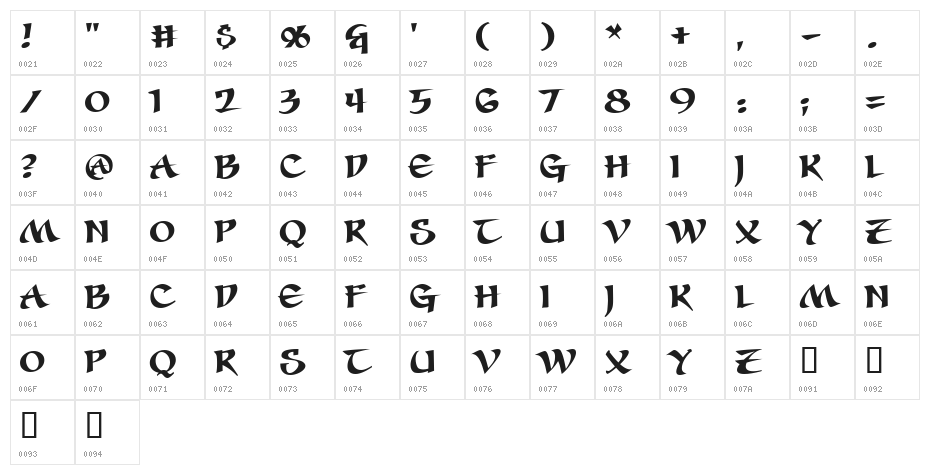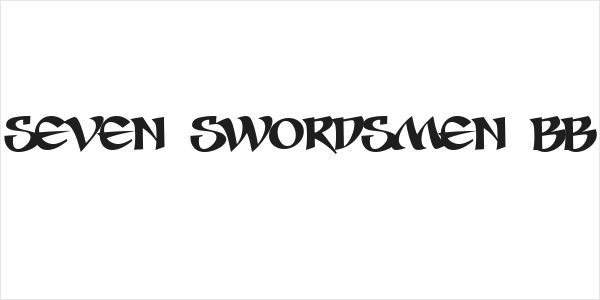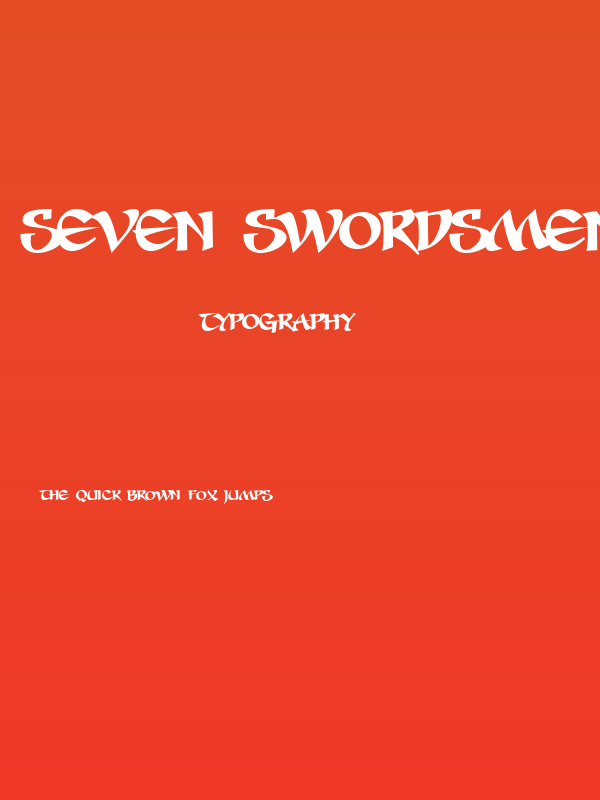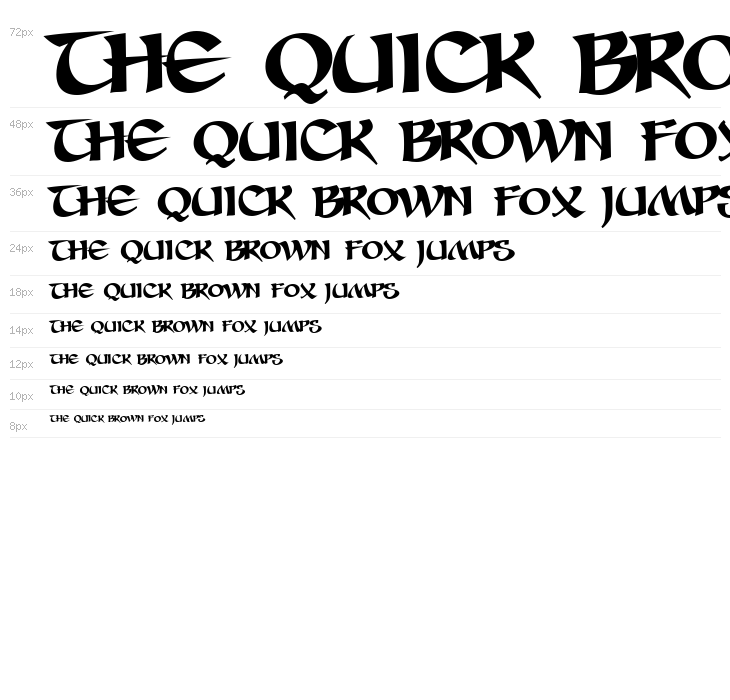
Seven Swordsmen BB Font
Seven Swordsmen BB Description
This font features a bold, dynamic style with sharp, angular strokes that convey a sense of movement and energy. The characters are designed with a dramatic flair, incorporating pointed edges and sweeping curves that give it a distinctive, aggressive appearance. The uppercase and lowercase letters maintain a consistent style, with the uppercase being particularly striking due to its larger size and more pronounced angles. The numerals and special characters are equally bold, ensuring a cohesive look across all text elements. This font is ideal for projects that require a strong visual impact and a sense of boldness.
| Proposed Projects | Perfect for action-themed posters, video game titles, martial arts branding, or any project needing a bold, energetic typeface. |